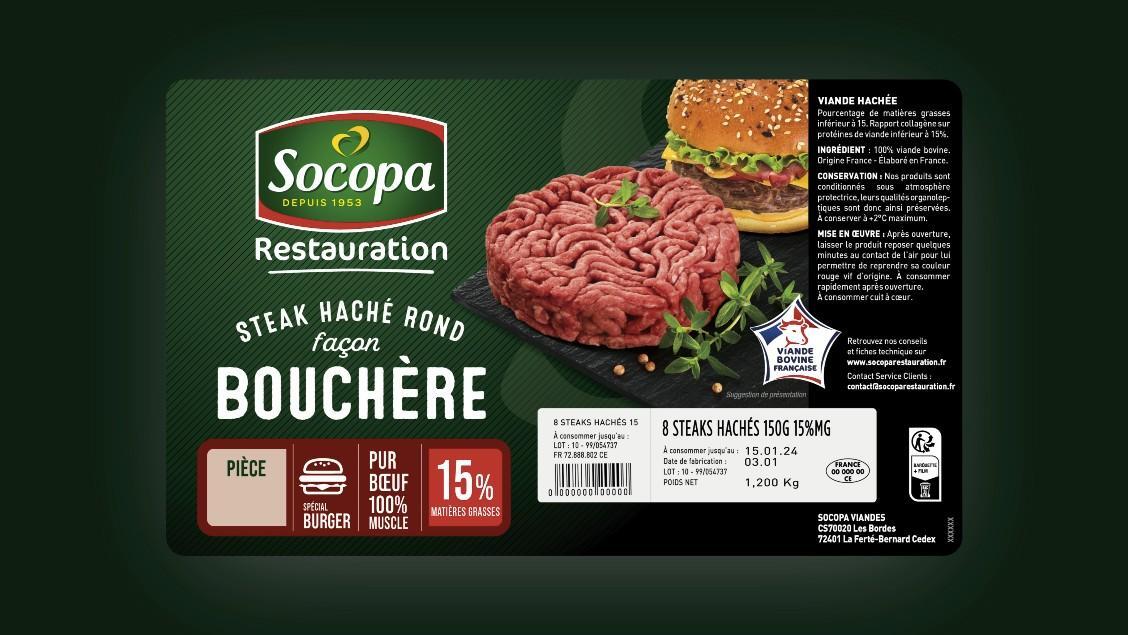
looking for help to identify the fonts used in a Steak box
I'm looking for help to identify the fonts used in a Steak box (image attached). This is a packaging design for beef patties intended for food service. The product is part of their "Restauration" line, and I believe the design is quite recent—likely from the past few years.
Specifically, I'm trying to identify the fonts used for:
The word "Bouchère" – It has a bold, blocky style with some vintage vibes.
The term "Steak Haché Rond Façon" – It has a more condensed and slightly modern look.
The "Restauration" label – It seems more stylized and slightly italicized.
The "Spécial Burger" section – The font is bold and rounded, with a fast-food design aesthetic.
The "Pur Bœuf 100% Muscle" text – This one is also bold but slightly more compressed, with clean lines.
The "15% Matières Grasses" text – It’s clear and simple, yet strong, possibly designed for quick readability.
Also Bebas.